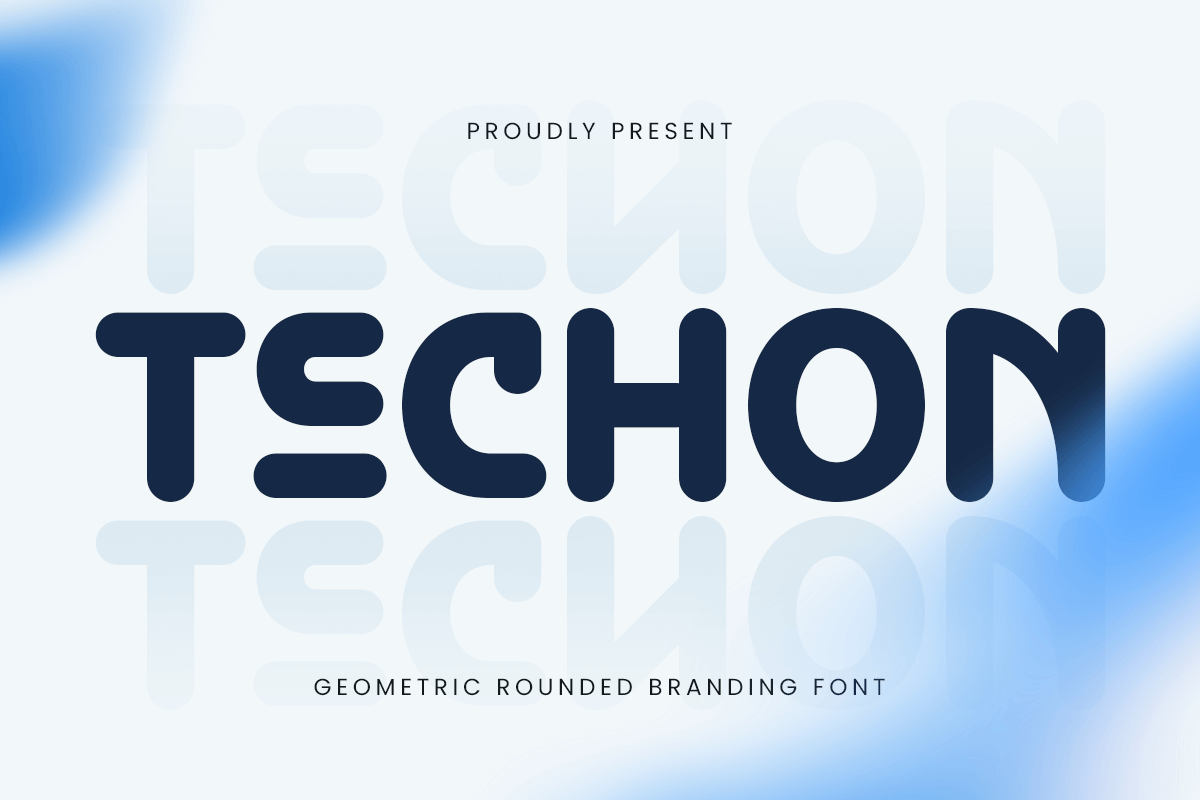
Techon
-Geometric Rounded Branding FontTechon - Geometric Rounded Branding Font
TECHON is a geometric rounded branding font designed to give your projects a modern, clean, and professional look. Ideal for logos, branding, digital products, and UI/UX designs, it combines smooth rounded shapes with precise geometric structure.
With balanced letterforms and excellent readability, TECHON provides a sleek and contemporary aesthetic suitable for both digital and print applications, perfect for tech-focused and modern creative projects.
TECHON – Geometric Rounded Branding Font Features
Rounded geometric character set for modern designs
Ideal for branding, logos, and digital applications
OpenType features for extra versatility